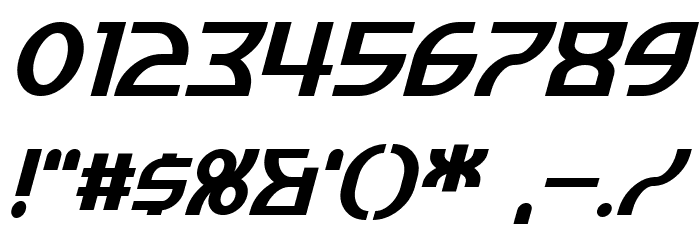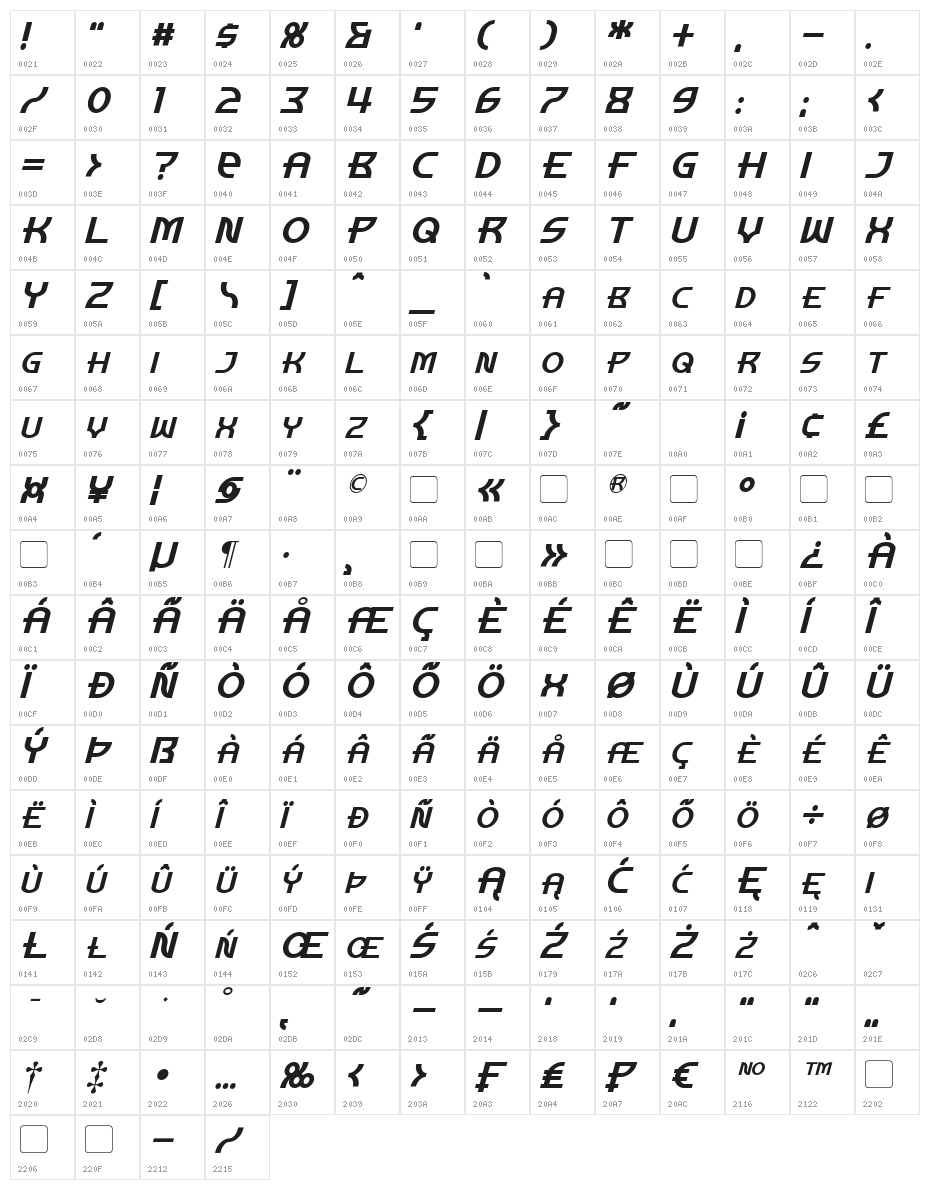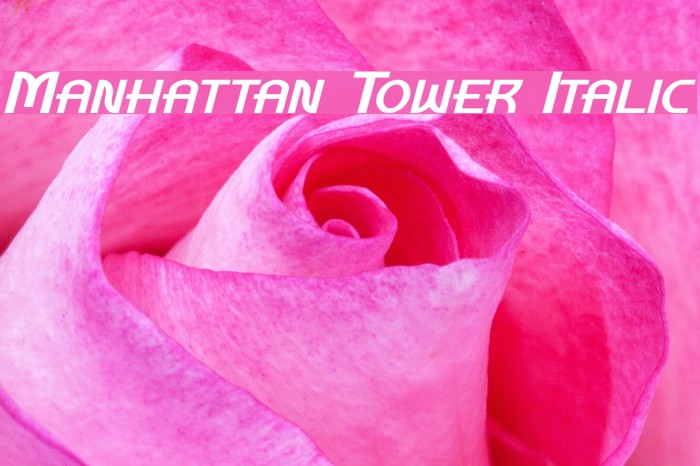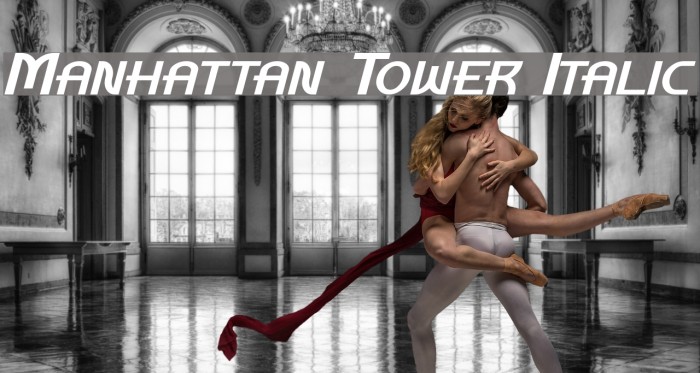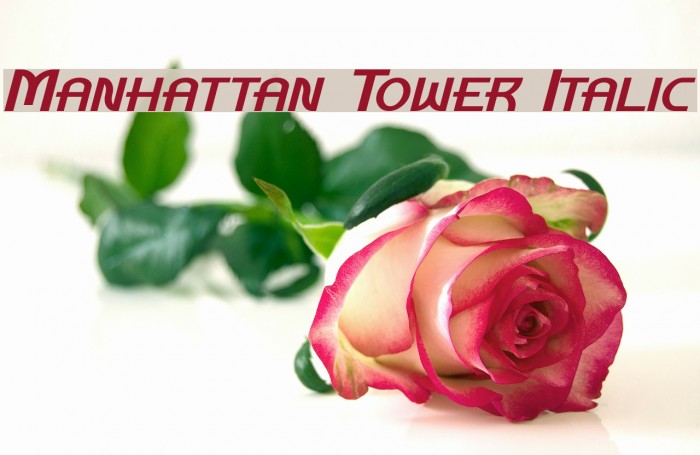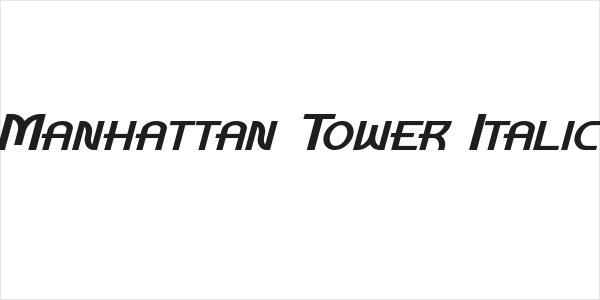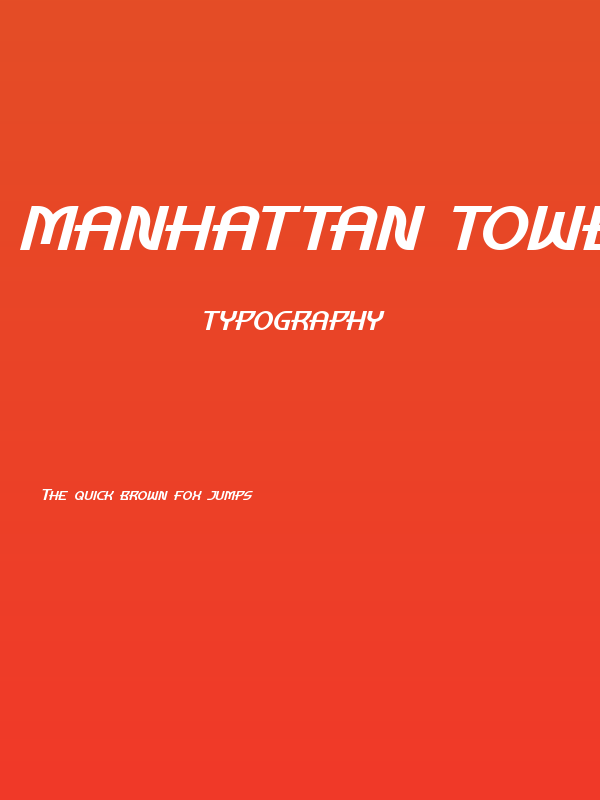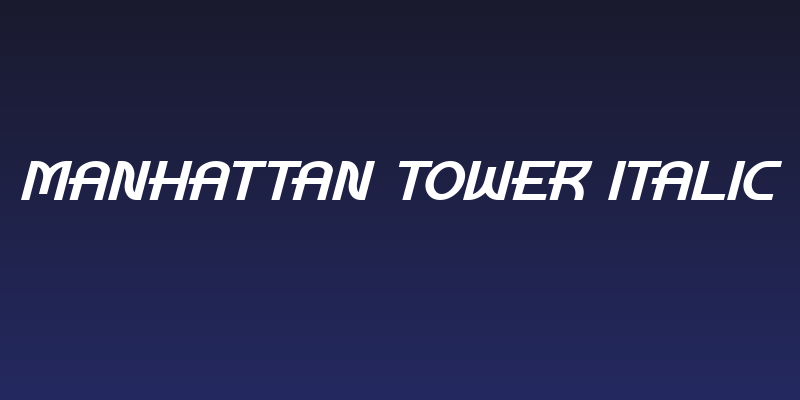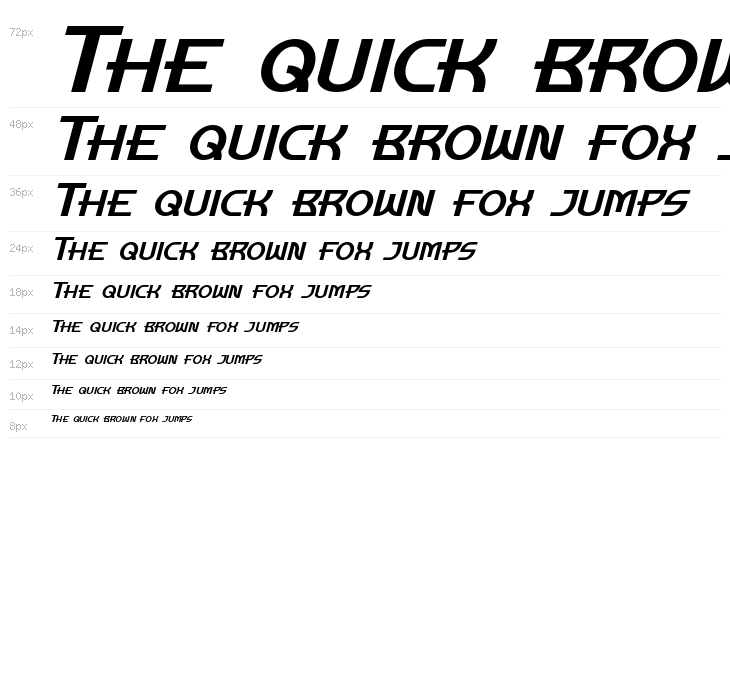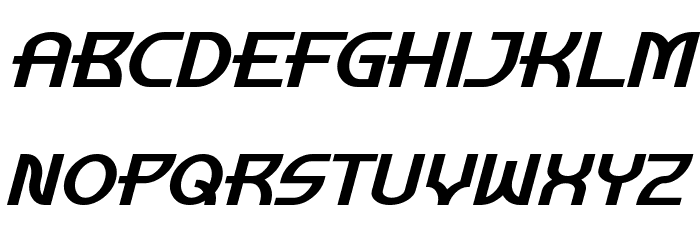
Manhattan Tower Italic Font
Manhattan Tower Italic Description
This font features a dynamic and modern italic style with a distinct slant, giving it a sense of motion and energy. The characters are bold and slightly condensed, with sharp angles and clean lines that create a sleek and futuristic appearance. The uppercase and lowercase letters maintain a consistent style, while the numerals and special characters complement the overall design. The font's unique characteristics make it stand out, offering a contemporary and stylish look suitable for various creative applications.